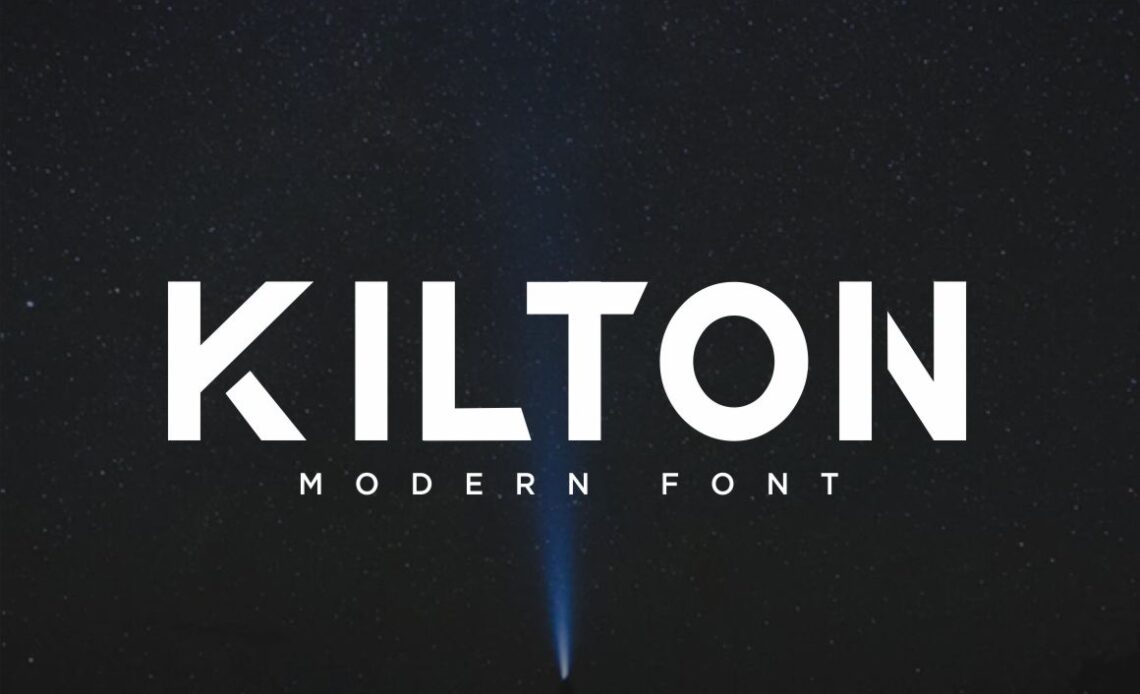
Kilton Font
Prepare to be enthralled by Kilton Font, the epitome of modern typography, meticulously crafted by Eldertype Studio. Step into a realm of visual elegance where your designs will transcend the ordinary.
Kilton Font is a sans-serif masterpiece that captivates with its clean lines, geometric precision, and minimalist charm. This versatile typeface effortlessly dances between body text and display font, lending its grace to any project.
Designed with a nod to technology, geometry, and minimalist aesthetics, Kilton Font seamlessly complements your logo designs, magazine headers, PowerPoint presentations, branding endeavors, brochures, cards, and myriad other creative endeavors.
Let Kilton Font be your guiding light as you navigate the digital realm, creating designs that resonate with your audience and leaving an indelible mark on their hearts and minds.
**Reasons Why Kilton Font Will Ignite Your Creative Spark:**
- Embark on a typographic journey where minimalism meets elegance, creating a visual symphony that captivates and inspires.
- Embrace the versatility of Kilton Font, a shape-shifter that effortlessly adapts from body text to display font, adding a touch of sophistication to every word.
- Unleash your creativity with a font that draws inspiration from technology, geometry, and minimalism, opening up a world of possibilities for logos, headers, branding, and more.
- Experience the seamless integration of Kilton Font into your design projects, enhancing your presentations, brochures, cards, and digital creations with its timeless appeal.
- Elevate your visual storytelling to new heights, captivating your audience with designs that command attention and leave a lasting impression.